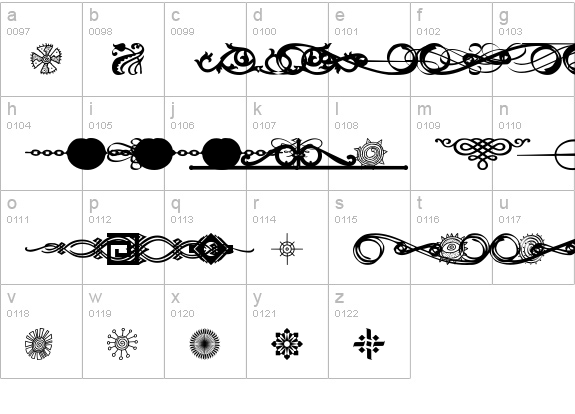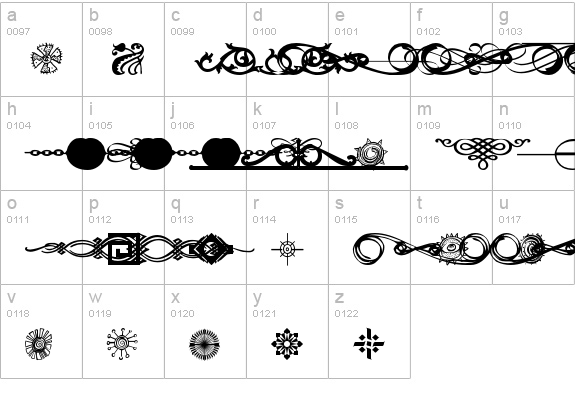
DesignMotif Font Details
DesignMotif font is a stunning typeface that embodies elegance and creativity. Its intricate details and unique design elements make it perfect for adding a touch of sophistication to any project. The font's sleek lines and modern aesthetic make it suitable for a wide range of design applications, from branding to editorial design. One of the best things about DesignMotif font is that it is completely free to use. You can easily download it from FontsMarket.com and start incorporating its captivating charm into your designs without any cost. This makes it a valuable asset for both professional designers and hobbyists looking to enhance their creative projects. With its versatility and eye-catching appeal, DesignMotif font is sure to elevate any design it is used in. Whether you're working on a logo, website, or any other design project, this font is a fantastic choice that will help your work stand out. Download DesignMotif font today and let your creativity shine with this beautiful typeface.